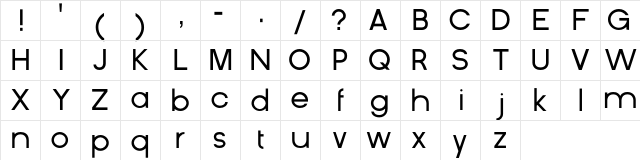
Super Rad Regular
| Designer | =^_^= |
Design Context for Super Rad Typeface
Super Rad offers clean, dependable letterforms without strong stylistic allegiance, making it a practical choice for designers who need flexibility.